Bangkok in Texture and Form
Yaowarat emerges through the abstract gestures of its street typography. In these photographs, letters dissolve into shape and color, and language becomes something to feel with the eye rather than read. Deprived of instant comprehension, we perceive typography as pure form: the tension between intact and fragmented strokes, the interplay of positive and negative space, and the unexpected collisions of weathered materials with gleaming glass. In one frame, a smear of red and shards of text streak across a car window, masking the driver; in another, a polished steel panel fractures a signboard into a kaleidoscopic mosaic.
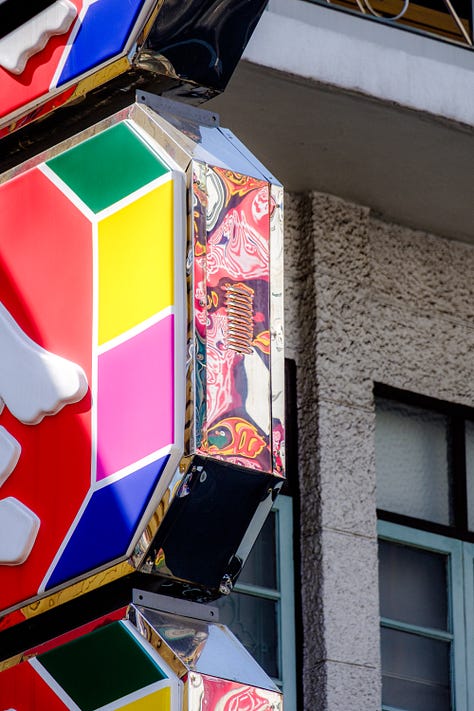
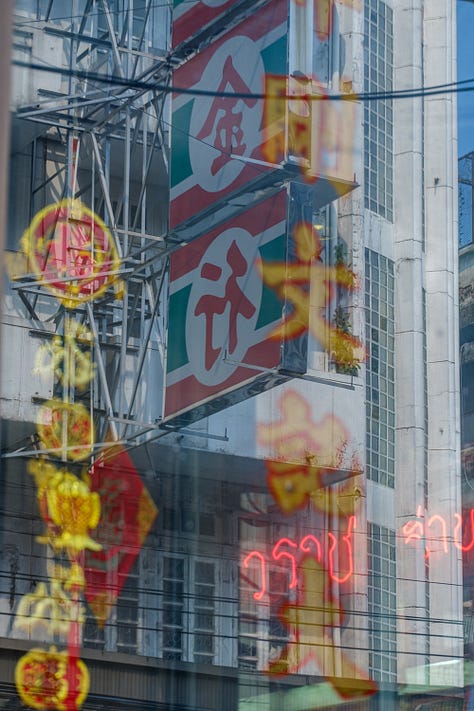
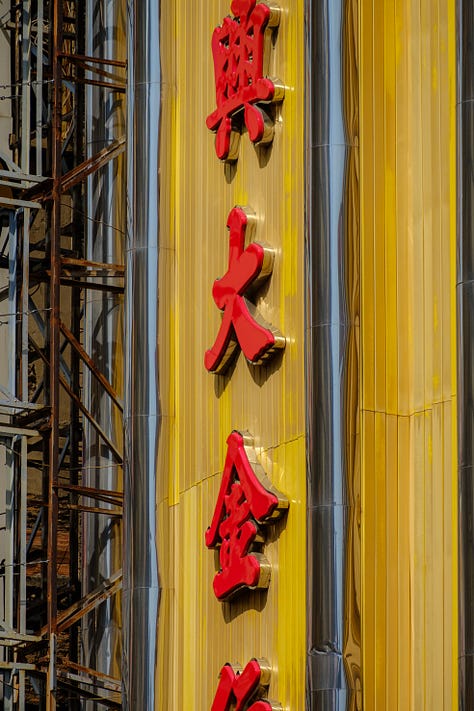
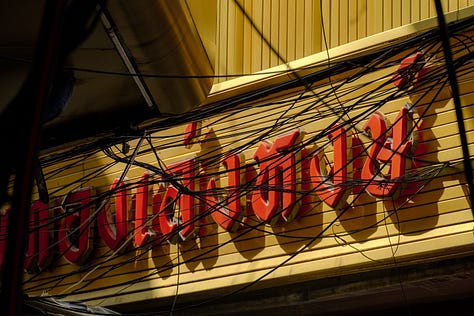
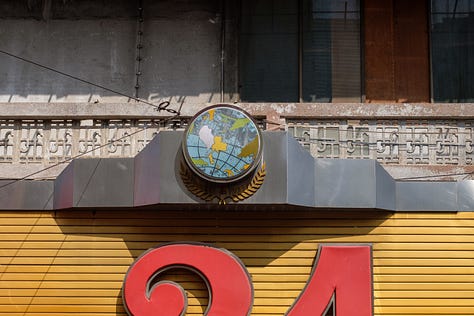
These abstractions become my guide into a city whose script remains unfamiliar, revealing its material life. By reducing unknown characters to shape and hue, these images turn Bangkok’s Chinatown’s signage into an archive of textures. Everyday signs become sculptural studies that capture the city’s restless energy. Through these photographs, Yaowarat unveils a visual language forged in texture and light.